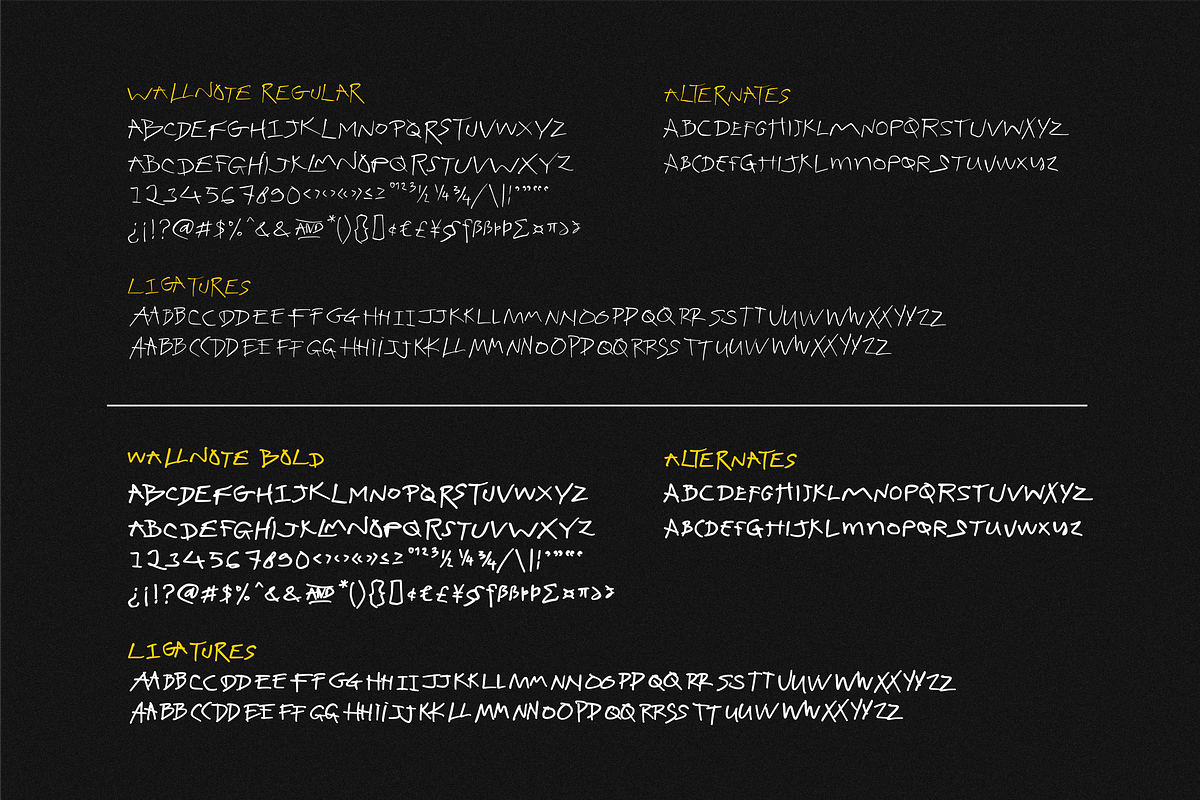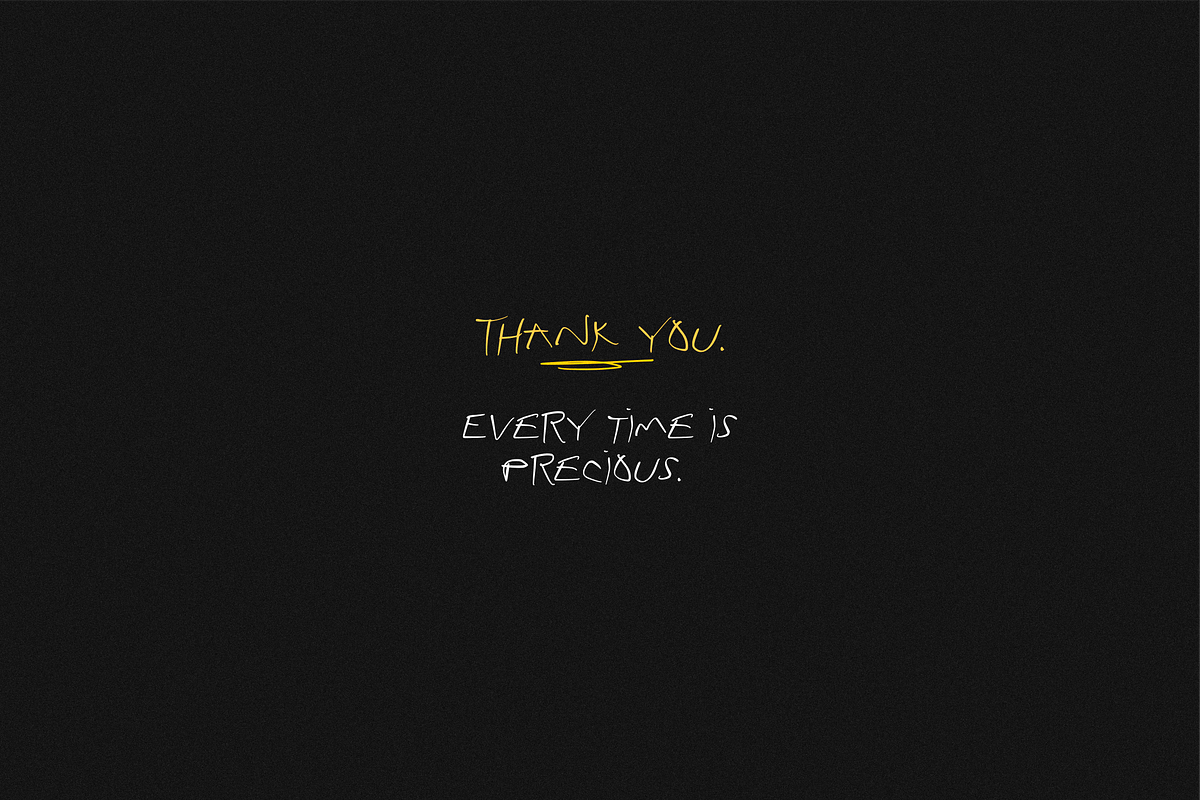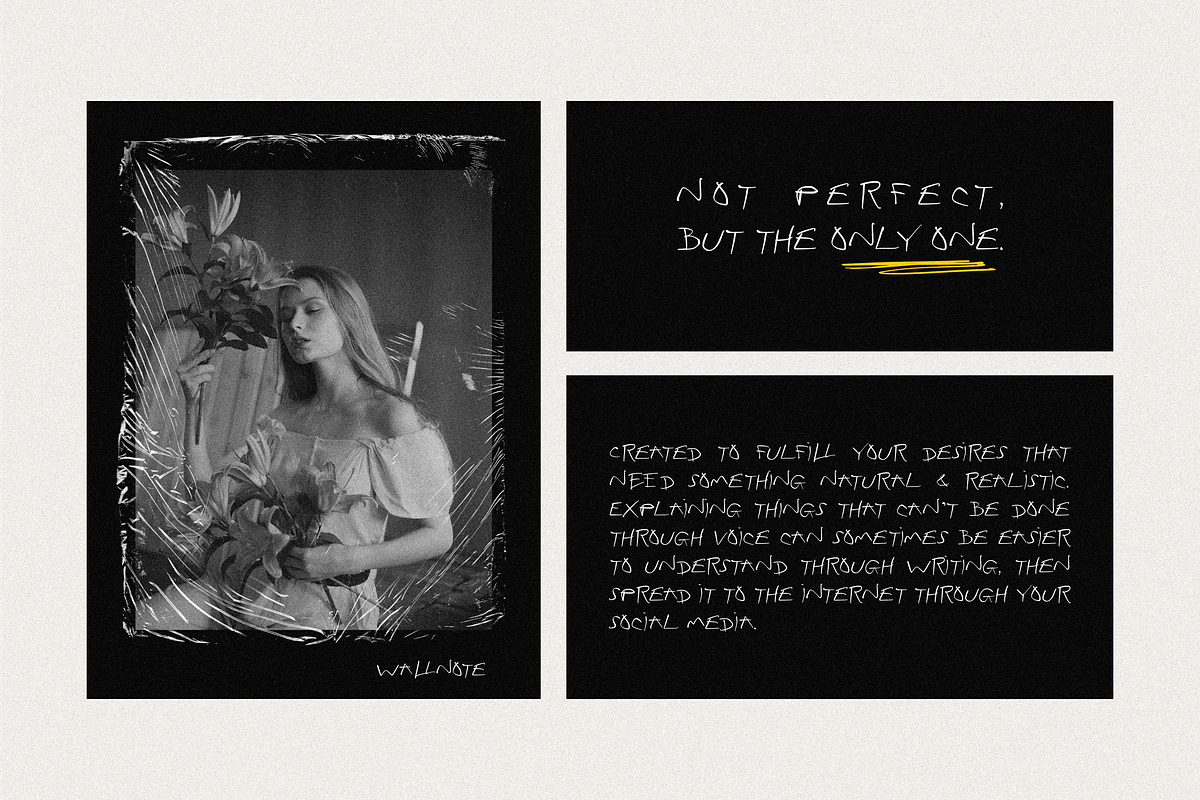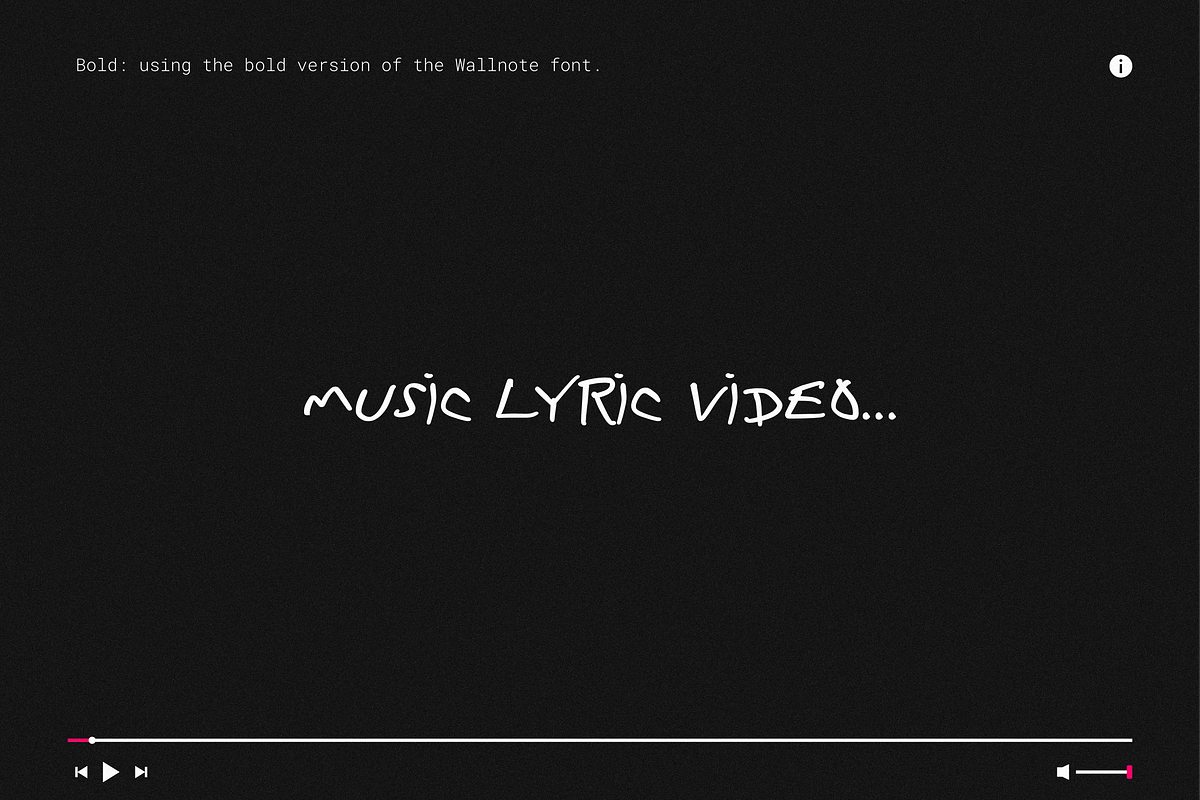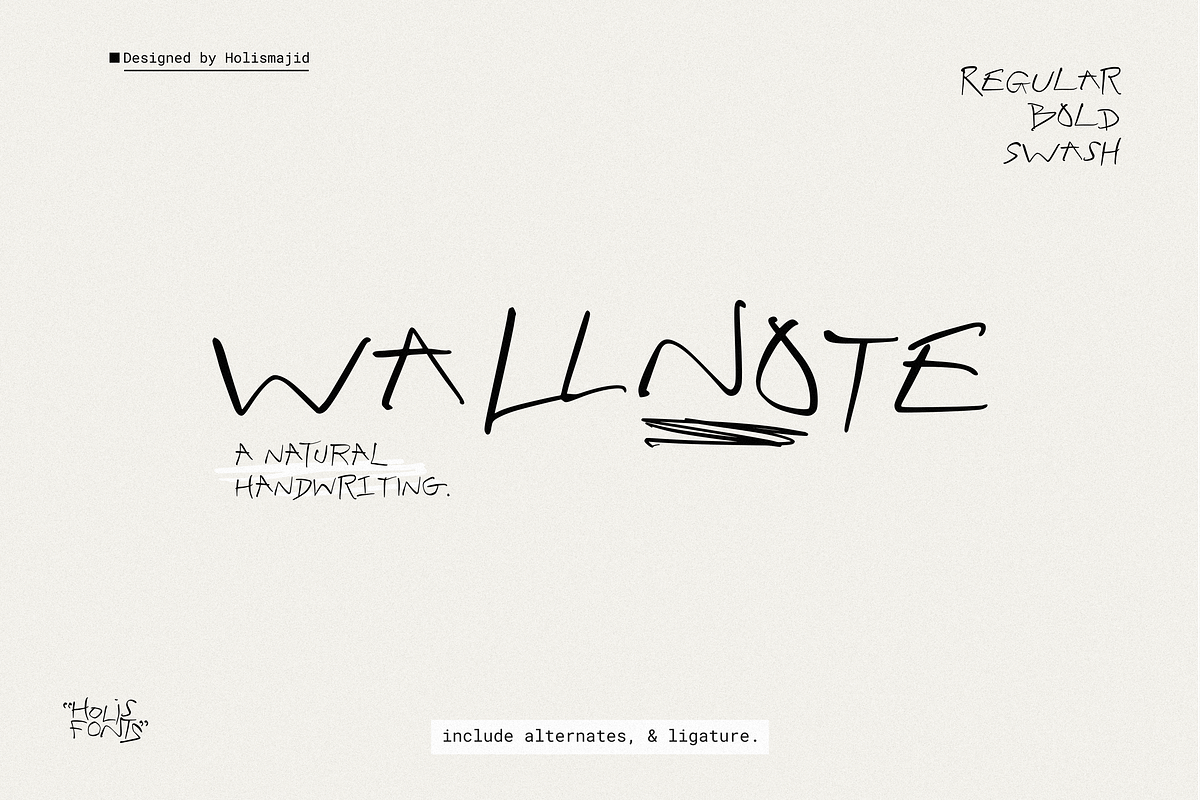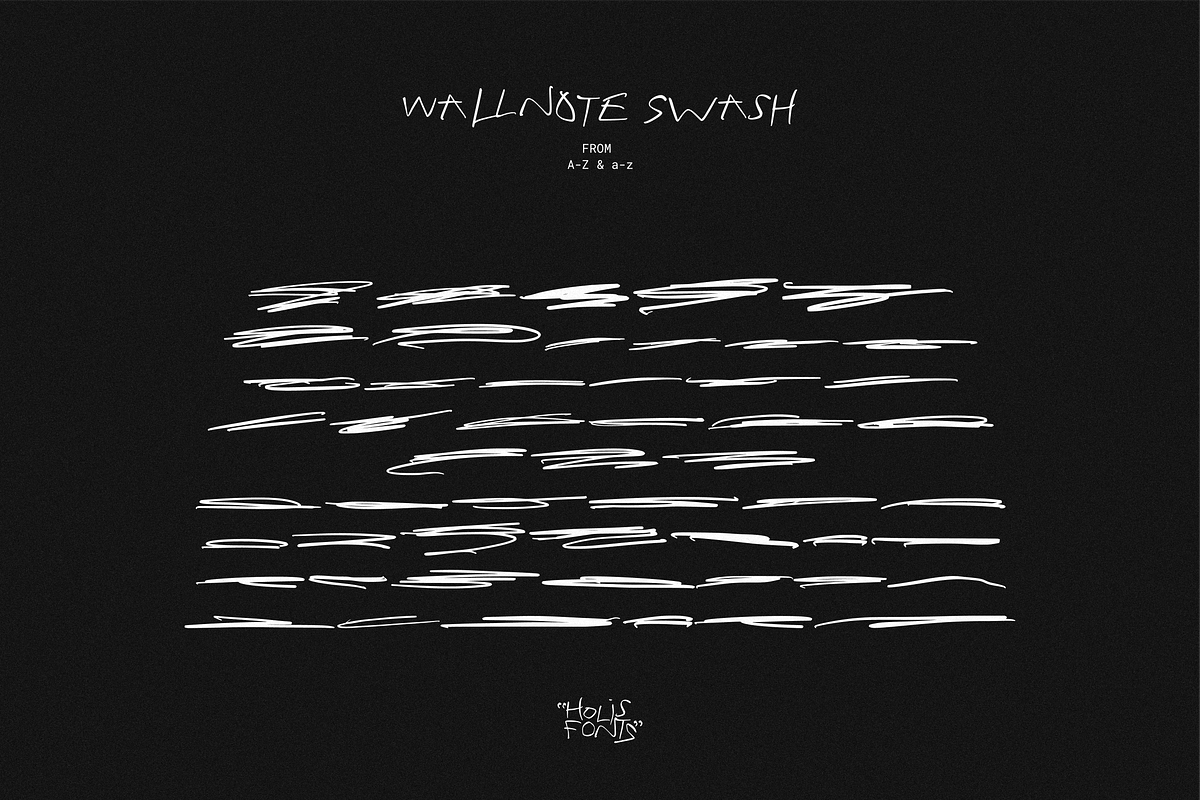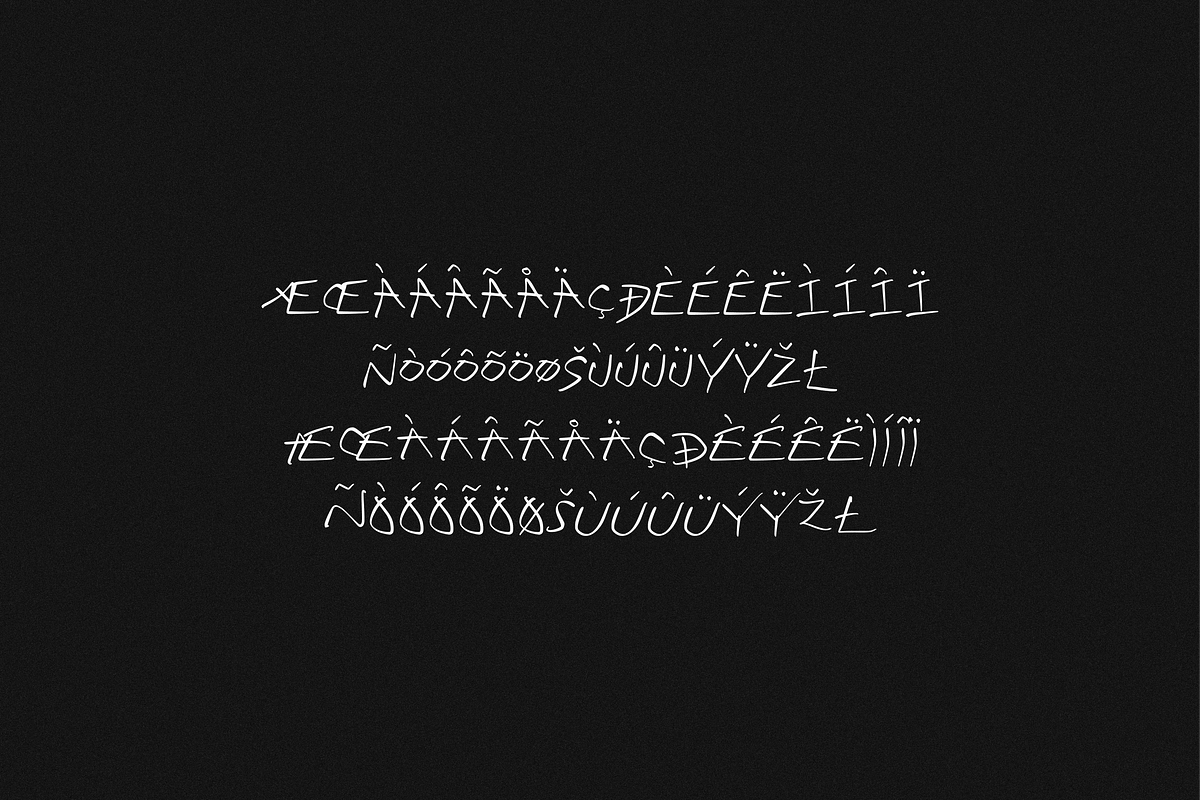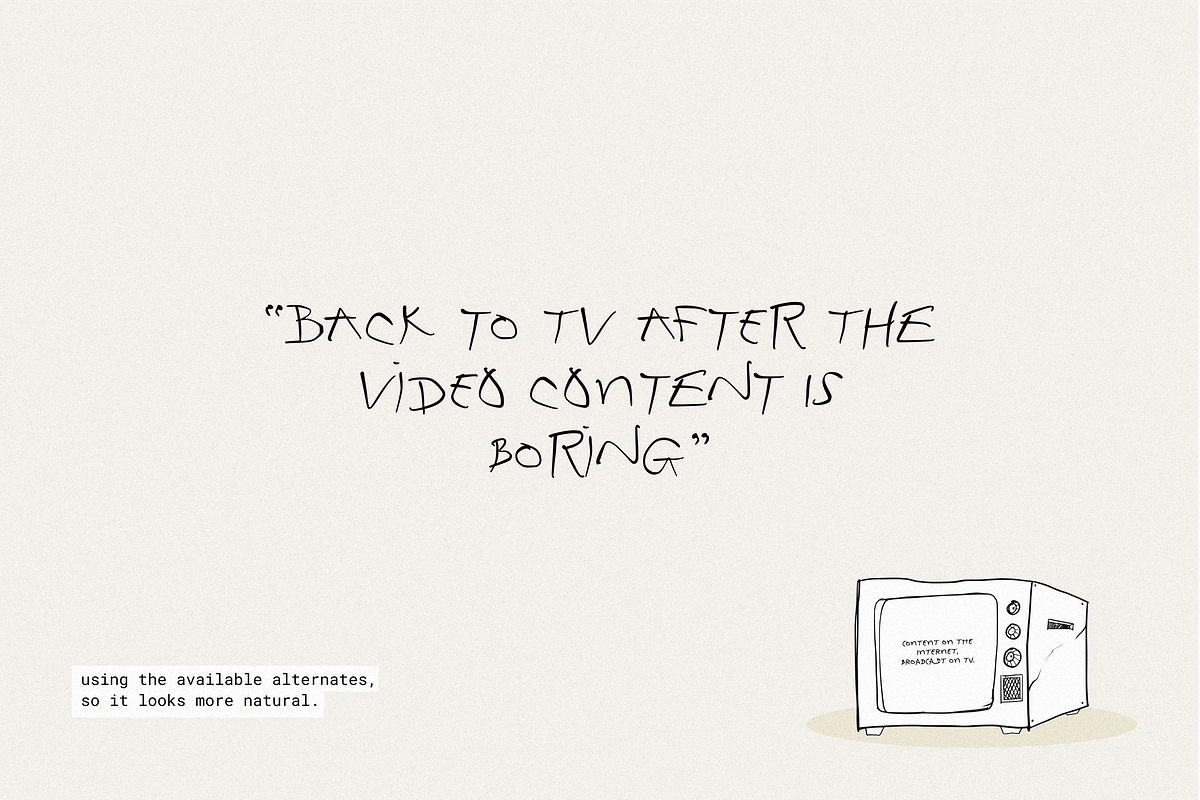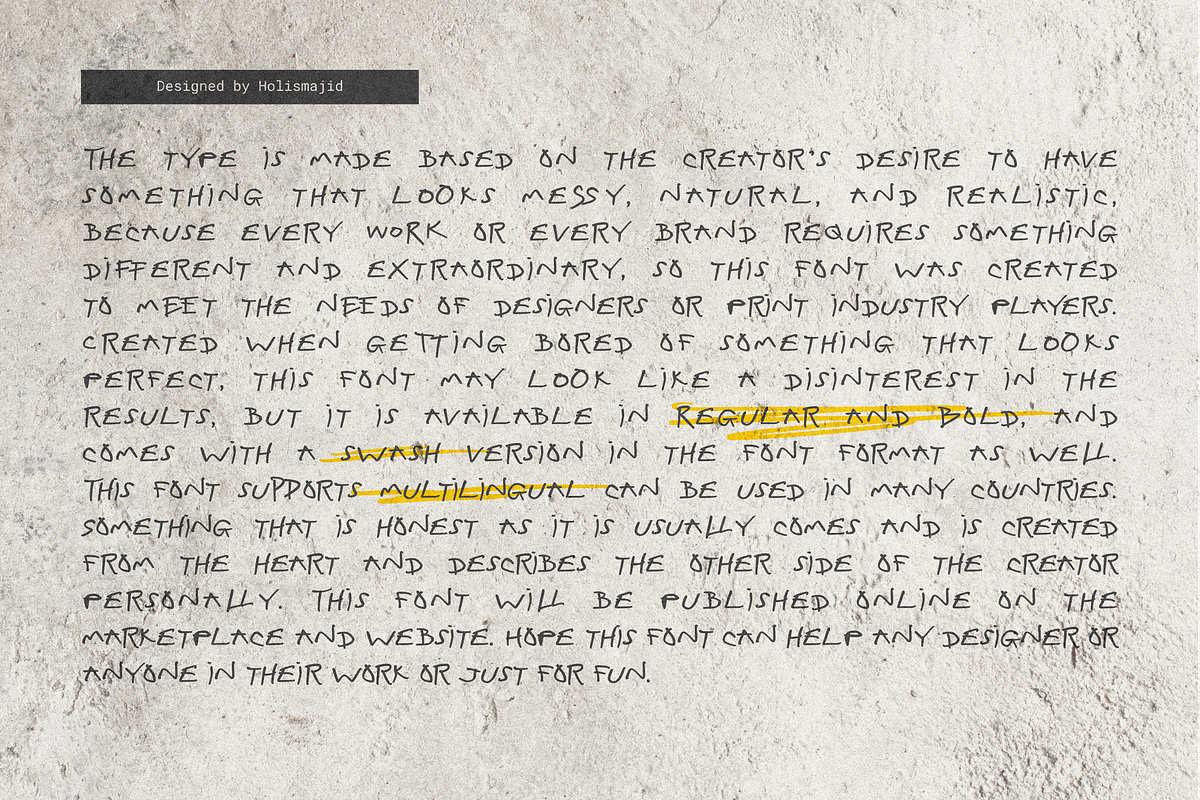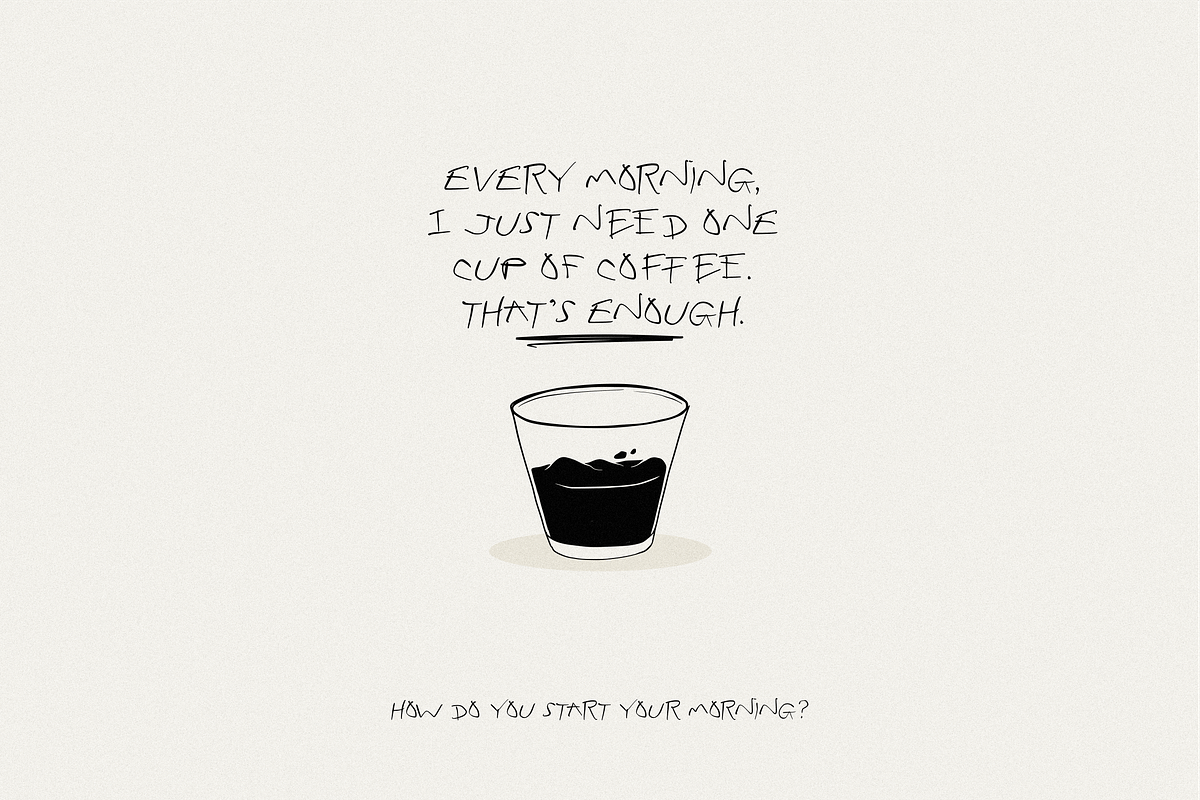
Wallnote Handwritten
Wallnote Handwritten inspired by the scribbles on the wall that quietly creep up, writing about the content of feelings in humans, found in films as a form of communication. With a natural and realistic touch, it is equipped with Regular, Bold, and Swash fonts as font supporting elements.